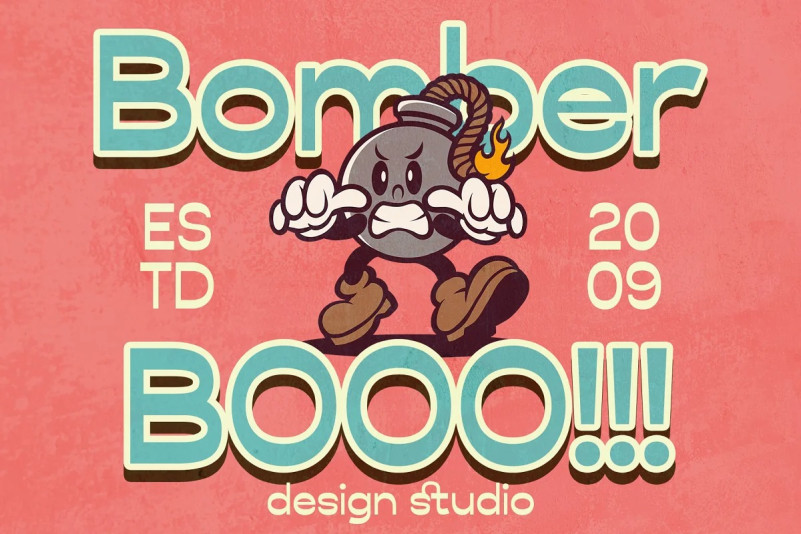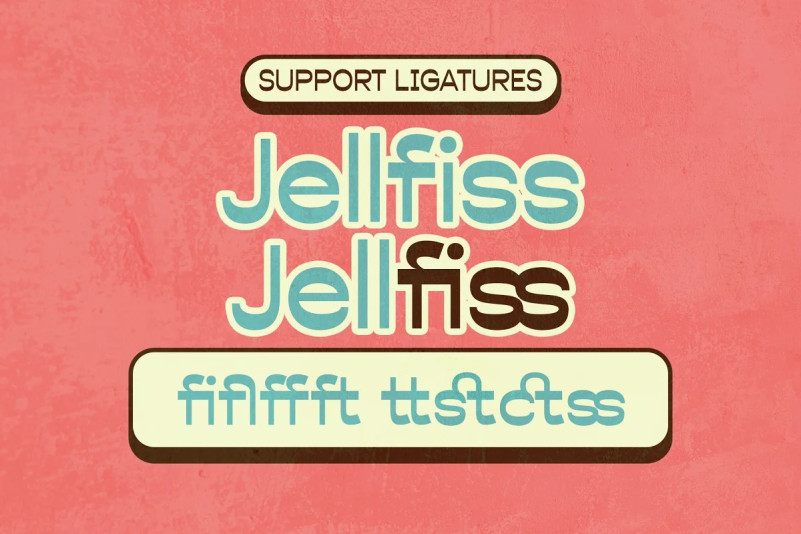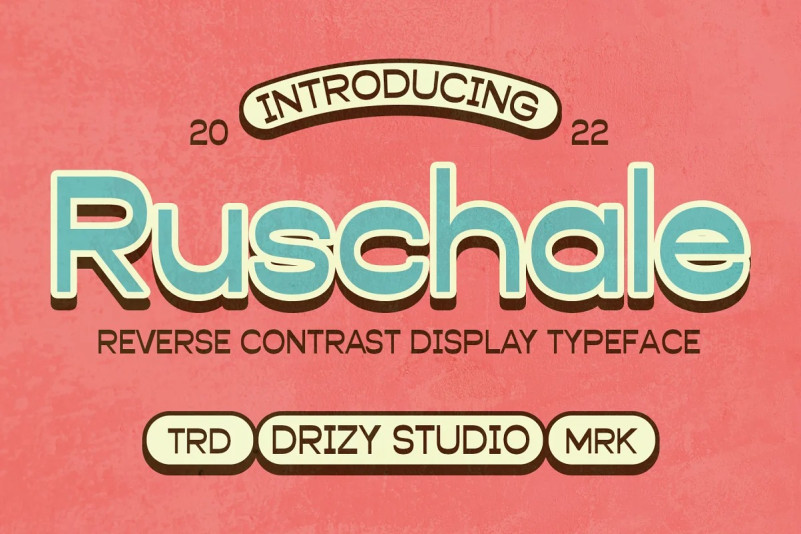
Ruschale Font
Introducing Ruschale Display Font! The display san serif with vintage look. It is very suitable for use for sign displays and other sizes you can use as needed for your project.